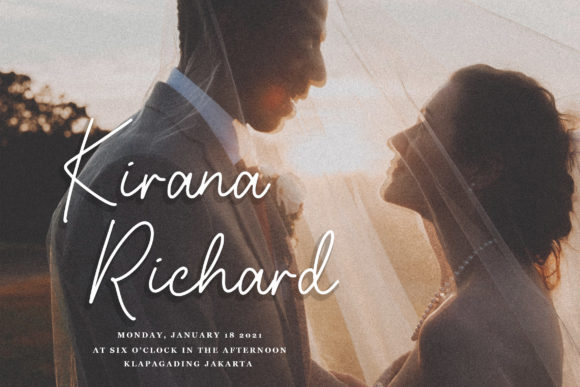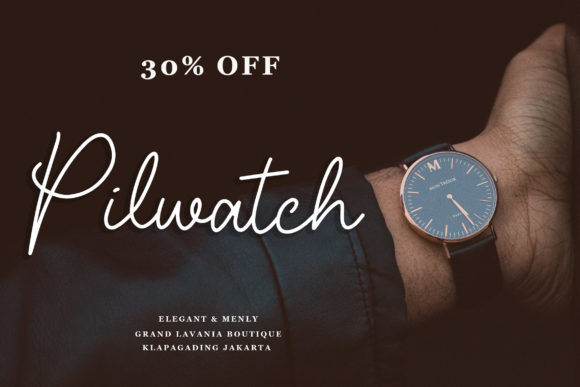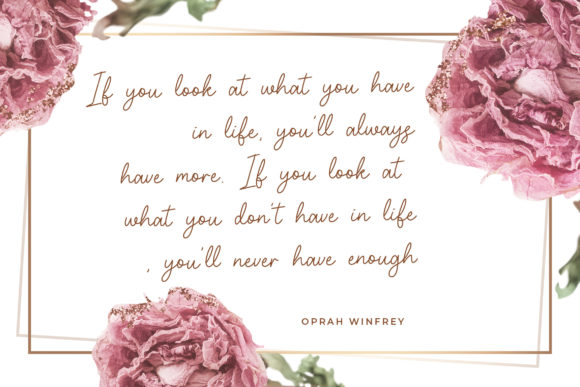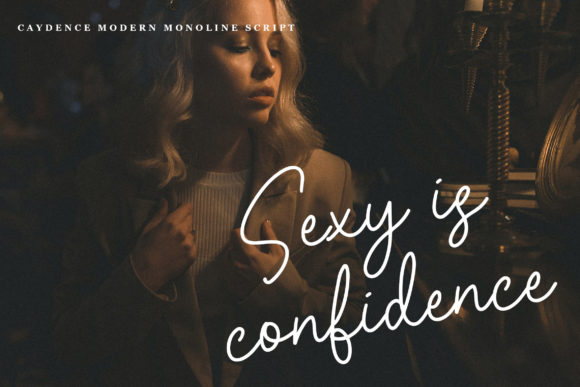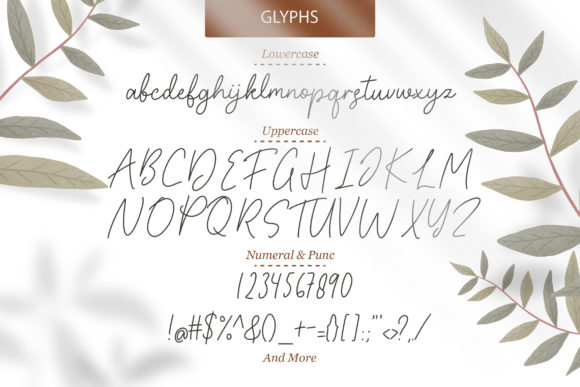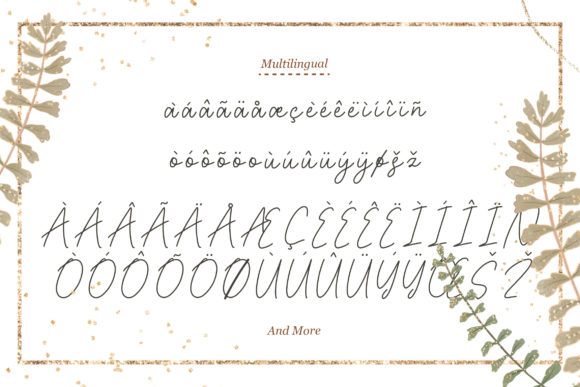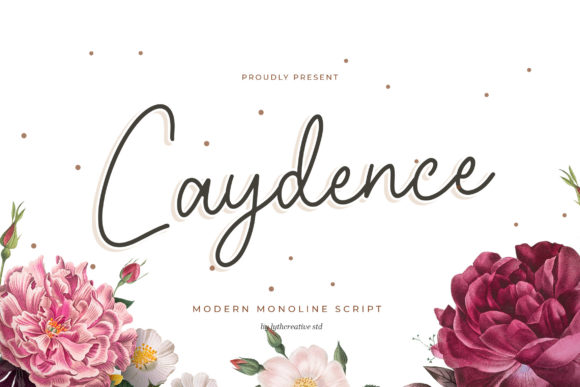
Caydence Font: Elevate Your Designs with a Modern Monoline Handwritten Style
In the world of typography, fonts play a crucial role in conveying the tone and personality of a design. For designers and crafters looking to add a touch of sweetness and vibrancy to their projects, the Caydence font is an excellent choice. This modern monoline handwritten font is designed to brighten up your designs and leave a lasting impression.
What is Caydence Font?
Caydence is a carefully crafted font that embodies a modern monoline handwritten style. Its unique charm lies in its simplicity and elegance, making it perfect for a wide range of design applications. Whether you’re working on a photography project, creating a signature logo, or designing a business card, Caydence is the ideal font to add a personal touch.
Key Features of Caydence Font
- Modern Monoline Handwritten Style: Caydence boasts a sleek and contemporary monoline handwritten style that adds a touch of sophistication to any design.
- Sweet and Full of Life: The font’s playful and lively personality makes it perfect for designs that require a friendly and approachable tone.
- Versatile: Caydence can be used confidently in various design projects, including watermark on photography, signature or signature logo design, quotes, album cover, business card, and many more.
Uses of Caydence Font
Caydence font is incredibly versatile and can be used in a multitude of design projects. Here are some ideas to get you started:
- Photography Watermark: Add a touch of elegance to your photography watermark with Caydence font, creating a lasting impression on your images.
- Signature Logo Design: Create a unique and personalized signature logo with Caydence font, perfect for branding and social media profiles.
- Quote Design: Use Caydence font to design inspiring and visually appealing quotes that can be shared on social media or used in marketing materials.
- Album Cover: Give your music or podcast album cover a modern and stylish look with Caydence font.
- Business Card: Stand out from the crowd with a beautifully designed business card featuring Caydence font.
Why Choose Caydence Font?
With so many fonts available, why choose Caydence? Here are a few reasons why designers and crafters love Caydence font:
- Unique Style: Caydence font offers a fresh and unique style that will set your designs apart from the rest.
- Ease of Use: The font is easy to read and works well in various design applications, making it a convenient choice for designers.
- Time-Saving: With Caydence font, you can create stunning designs quickly and efficiently, saving you time and effort.
Tips for Using Caydence Font
To get the most out of Caydence font, here are some tips to keep in mind:
- Experiment with Colors: Try pairing Caydence font with different colors to create a unique and eye-catching design.
- Play with Sizes: Experiment with different font sizes to add emphasis and create visual hierarchy in your design.
- Mix and Match: Combine Caydence font with other fonts to create a distinctive and stylish design.
Caydence font is a modern monoline handwritten font that is sure to elevate your designs and add a touch of sweetness and vibrancy. With its unique style, versatility, and ease of use, Caydence is an excellent choice for designers and crafters looking to create stunning designs. Whether you’re working on a photography project, signature logo design, or business card, Caydence font is the perfect addition to your design toolkit.